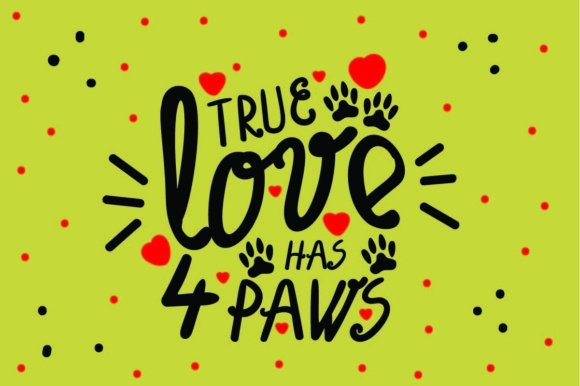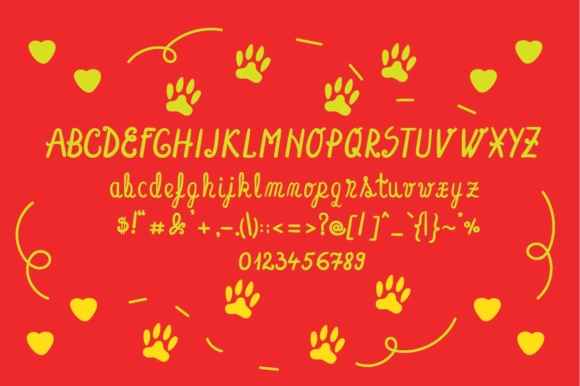
Dog Glitter Font
About Dog Glitter Font
Dog Glitter is a playful, fun font.
Using this font, you will experience the same feeling as when you’re looking at happy Labrador puppies play!